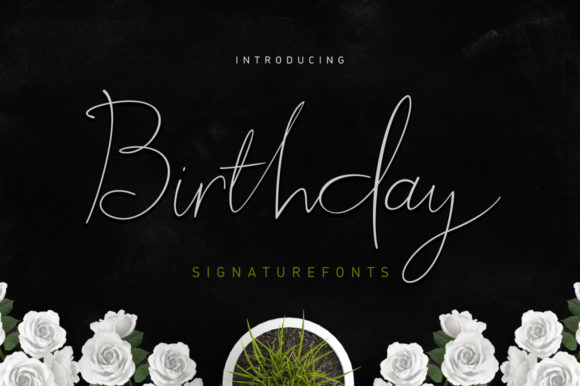
Dive into the enchanting world of Birthday Script, a beautifully handcrafted font family that exudes charm and elegance. Step into a realm where your creative visions take flight, and your designs dance with a touch of whimsy and sophistication.
Unleash your inner artist and let your imagination soar with Birthday Script's graceful curves, flowing lines, and enchanting glyphs. Each letter is a work of art, meticulously designed to capture the essence of your message and make a lasting impression. Feel the joy of crafting stunning logos, eye-catching social media posts, and heartfelt invitations that captivate your audience.
Birthday Script is more than just a font; it's an experience that awakens your senses and ignites your creativity. Transport yourself to a world of enchantment, where words come alive with a touch of magic and personality. Engage your audience with captivating headlines, charming quotes, and heartfelt messages that resonate with their hearts.
With Birthday Script, you'll discover endless possibilities for self-expression. Whether you're a seasoned designer or just starting your creative journey, this font family will empower you to transform ordinary words into extraordinary works of art. Experience the joy of creating designs that evoke emotion, capture attention, and leave an unforgettable mark on the world.
So, let your creativity flourish with Birthday Script. Its modern handwritten style and impeccable readability make it perfect for branding designs that demand attention. Let your imagination run wild and create designs that resonate with your audience, leaving them inspired and enchanted. Embrace the magic of Birthday Script and embark on a creative adventure that will leave you breathless.